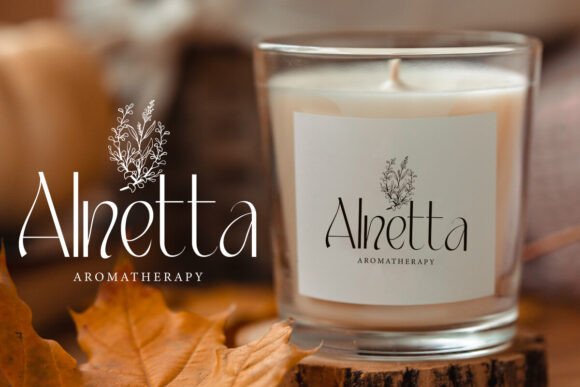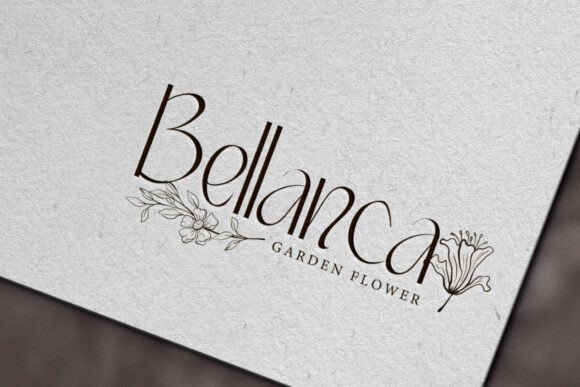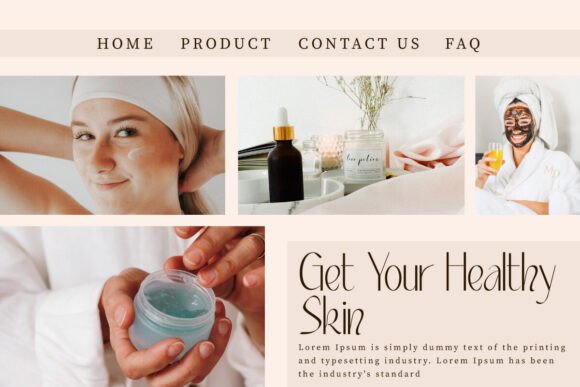
Besmooth Font
Besmooth Font is a unique, fancy yet elegant sans serif display font. This font has thin lines with beautiful curves like flowing water. It will be good for any designs, such as brand image, cover, custom design, flyer, invitation, label, marketing material, menu, poster, product packaging, quote, signage, stationery, website page, and more!